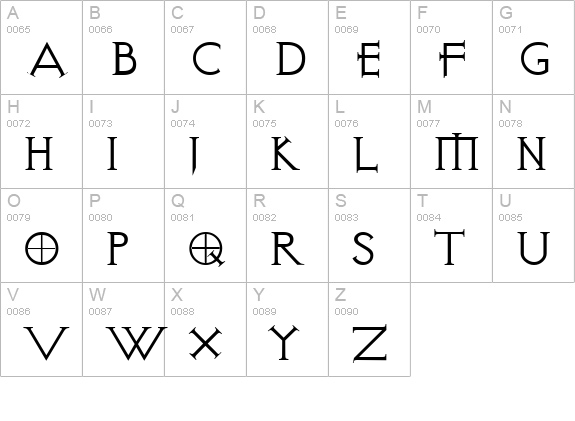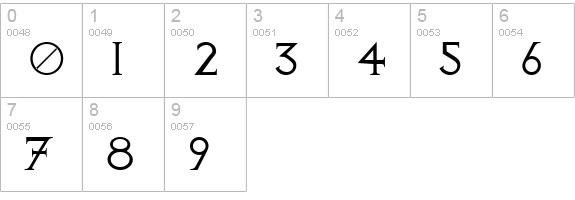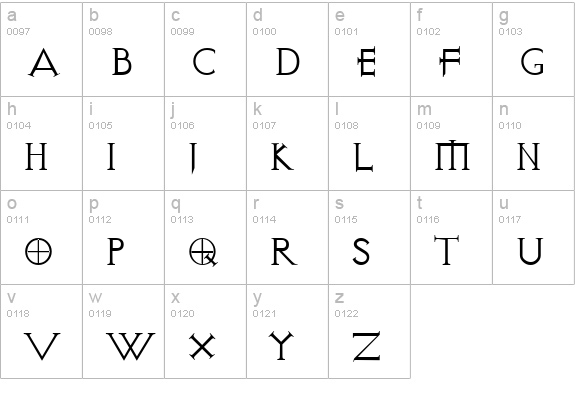
Visitation Regular Font Details
Visitation Regular is the standard, neutral variant in the Visitation typeface family \xE2\x80\x94 well suited to general body text, paragraphs, and standard typographic work.
Visitation Regular font is a beautiful and elegant typeface that will add a touch of sophistication to any design project. With its clean lines and smooth curves, this font is perfect for both headers and body text. It exudes a sense of professionalism and refinement, making it ideal for corporate presentations, branding materials, and editorial layouts. What sets Visitation Regular font apart is not only its stunning aesthetics but also its availability as a free download. FontsMarket.com offers this font freely, allowing you to enhance your creative endeavors without any cost. Its accessibility and affordability make it an excellent choice for designers, students, and anyone who wants to elevate their work without breaking the bank. Whether you're designing a website, crafting a logo, or creating eye-catching advertisements, Visitation Regular font will bring a sense of elegance and style to your projects. Its versatility ensures that it can be used across various industries and design applications. From fashion to finance, this font will effortlessly elevate your visual communication. The Visitation Regular font is designed with legibility in mind, ensuring that your message is easily readable across different mediums. Its balanced letterforms and generous spacing make it a pleasure to read, whether in print or on-screen. This font is also compatible with different software programs, ensuring seamless integration into your existing design workflow. With Visitation Regular font, you have the freedom to express your creativity without any limitations. Its timeless elegance and availability as a free download make it the perfect choice for designers who want to make a lasting impression. So why wait? Head over to FontsMarket.com and download Visitation Regular font today, and let your designs speak volumes with its refined and sophisticated appeal.